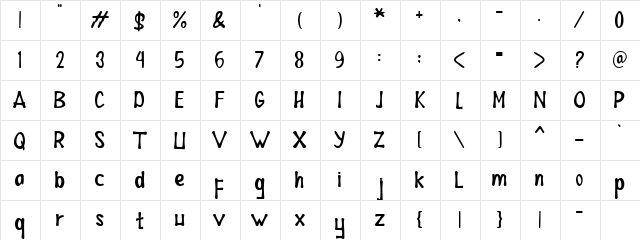
Astrajingga Regular
Design Context for Astrajingga Typeface
Astrajingga is a composed and adaptable typeface that performs quietly and consistently across a wide range of design contexts.